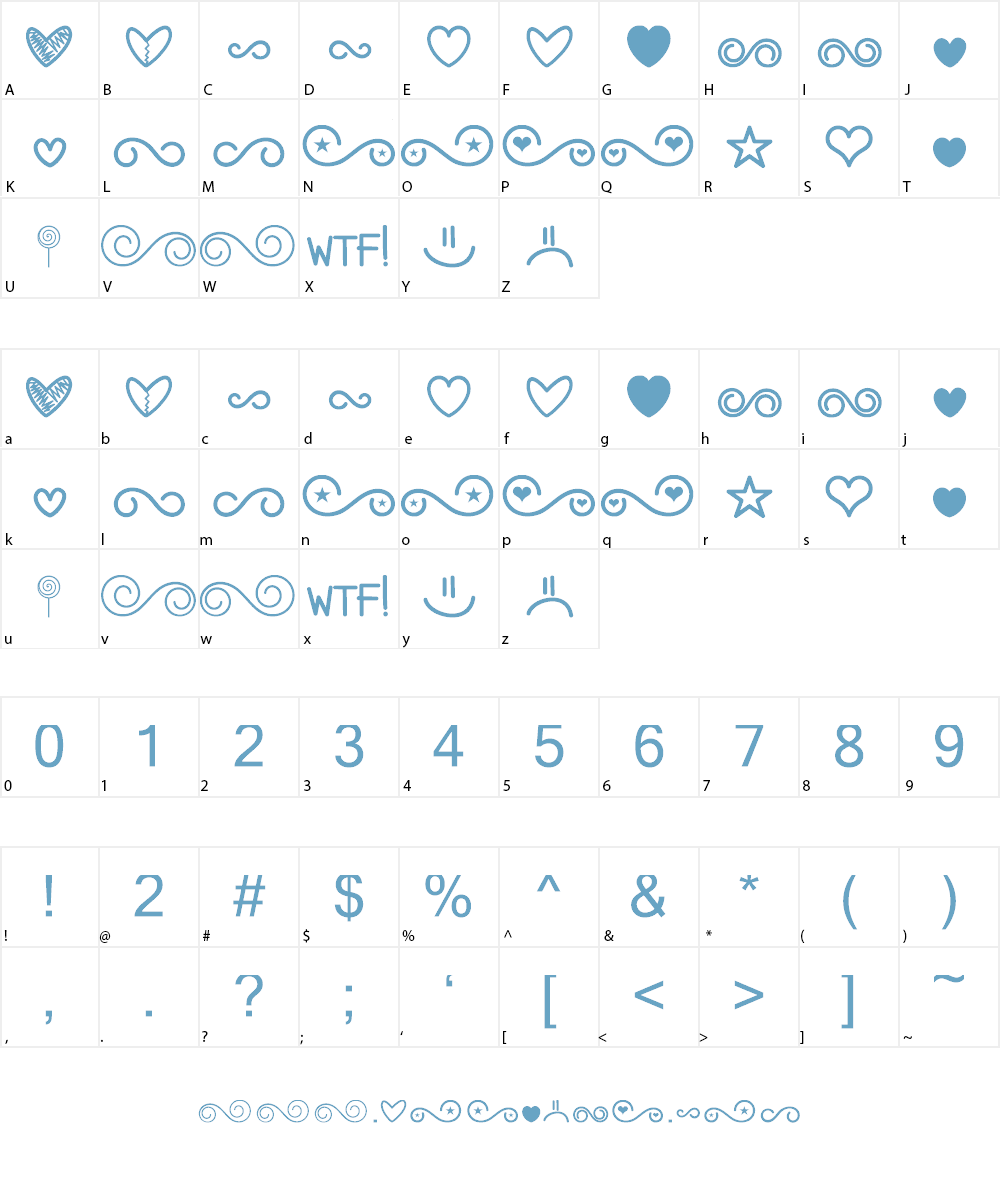
This ding set includes all the special characters from my previous fonts (Fool For Love, Love Is A Many Complicated Thing, Head Versus Heart, Sex & Candy, and What's My Age Again).